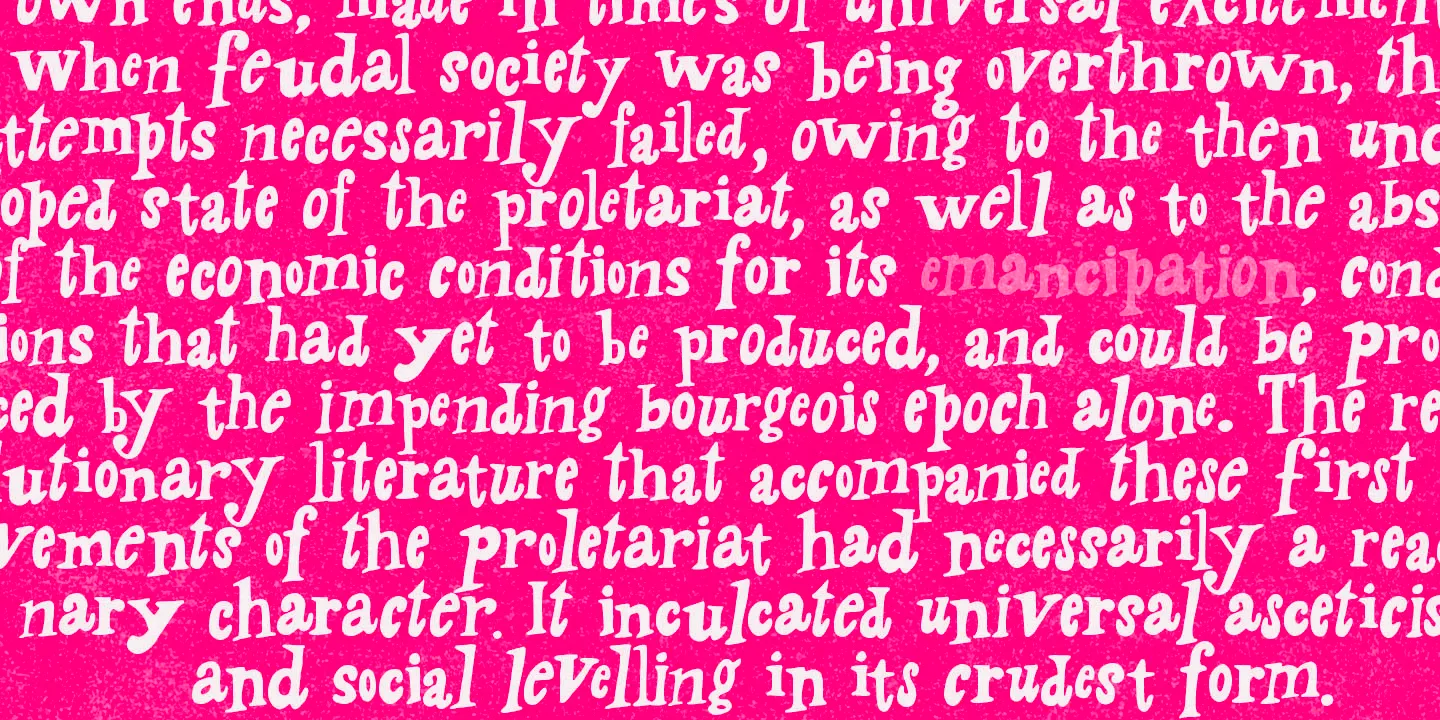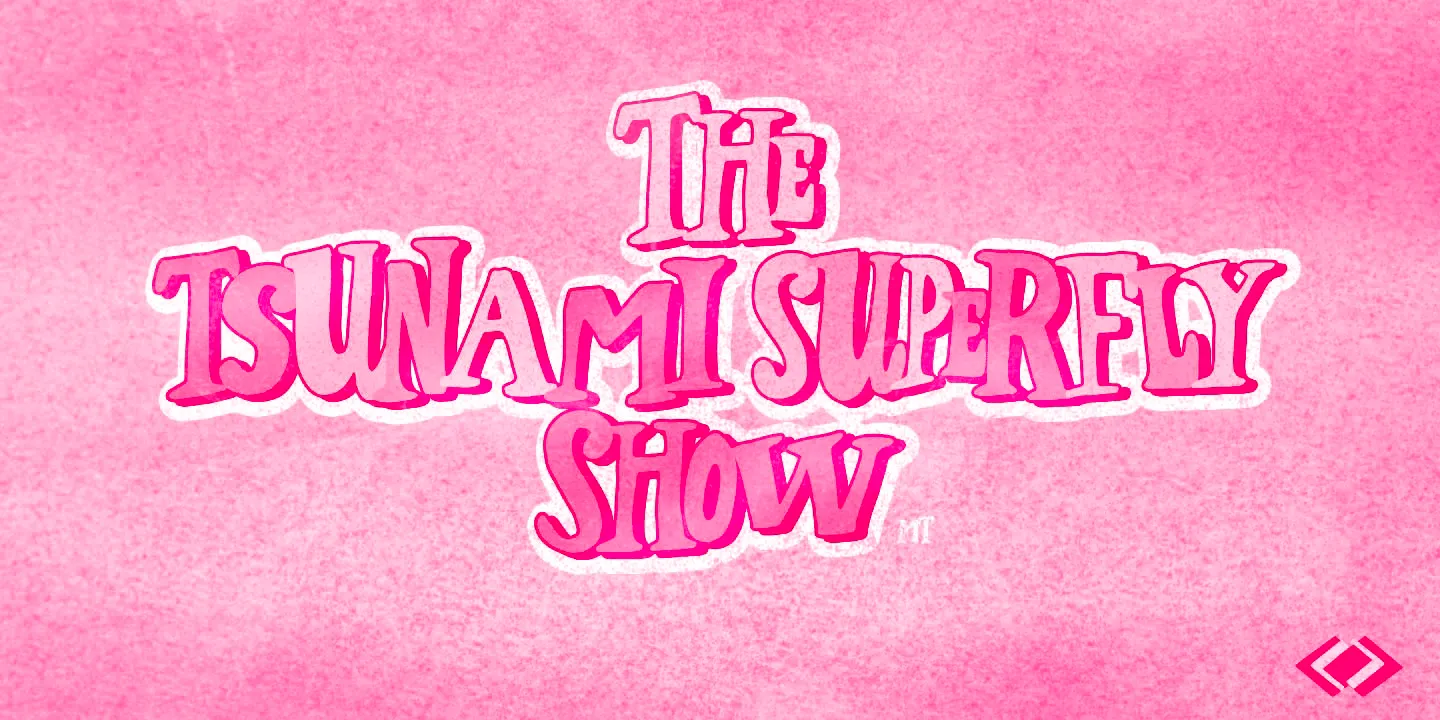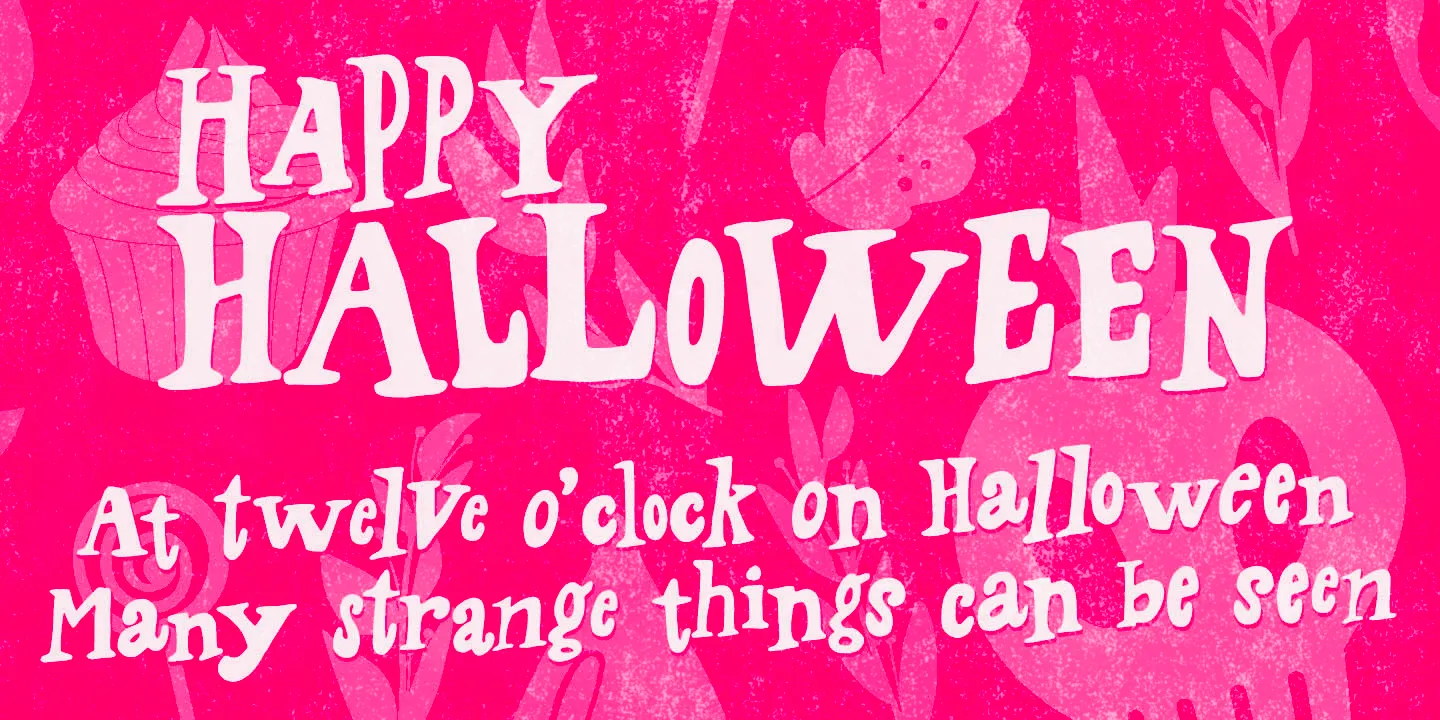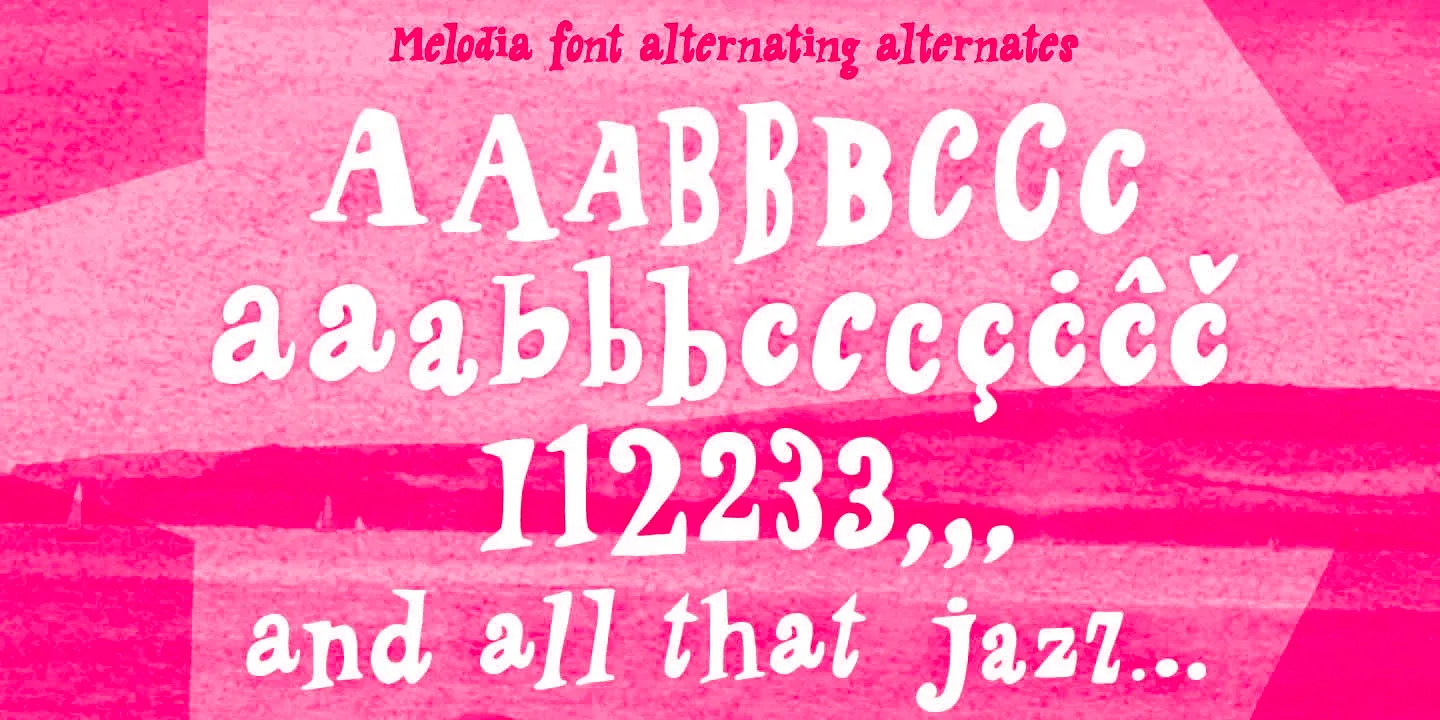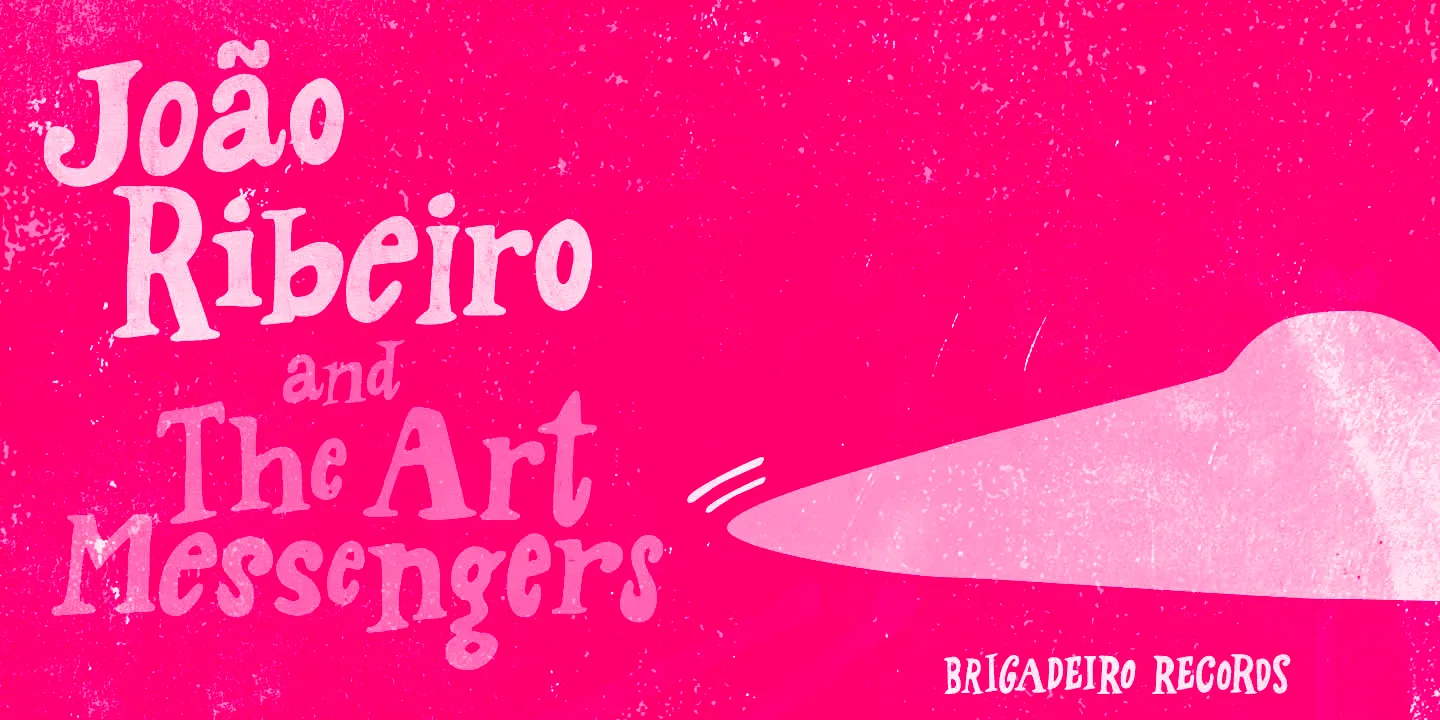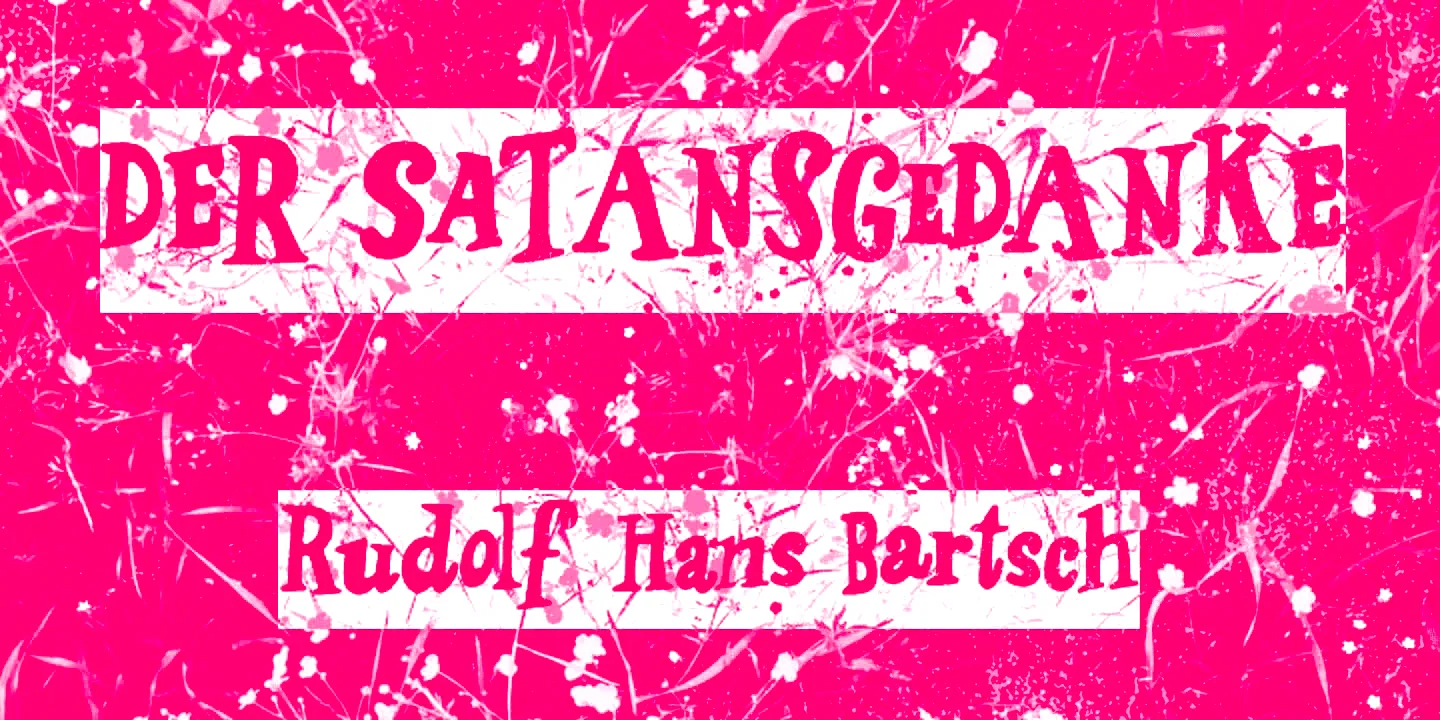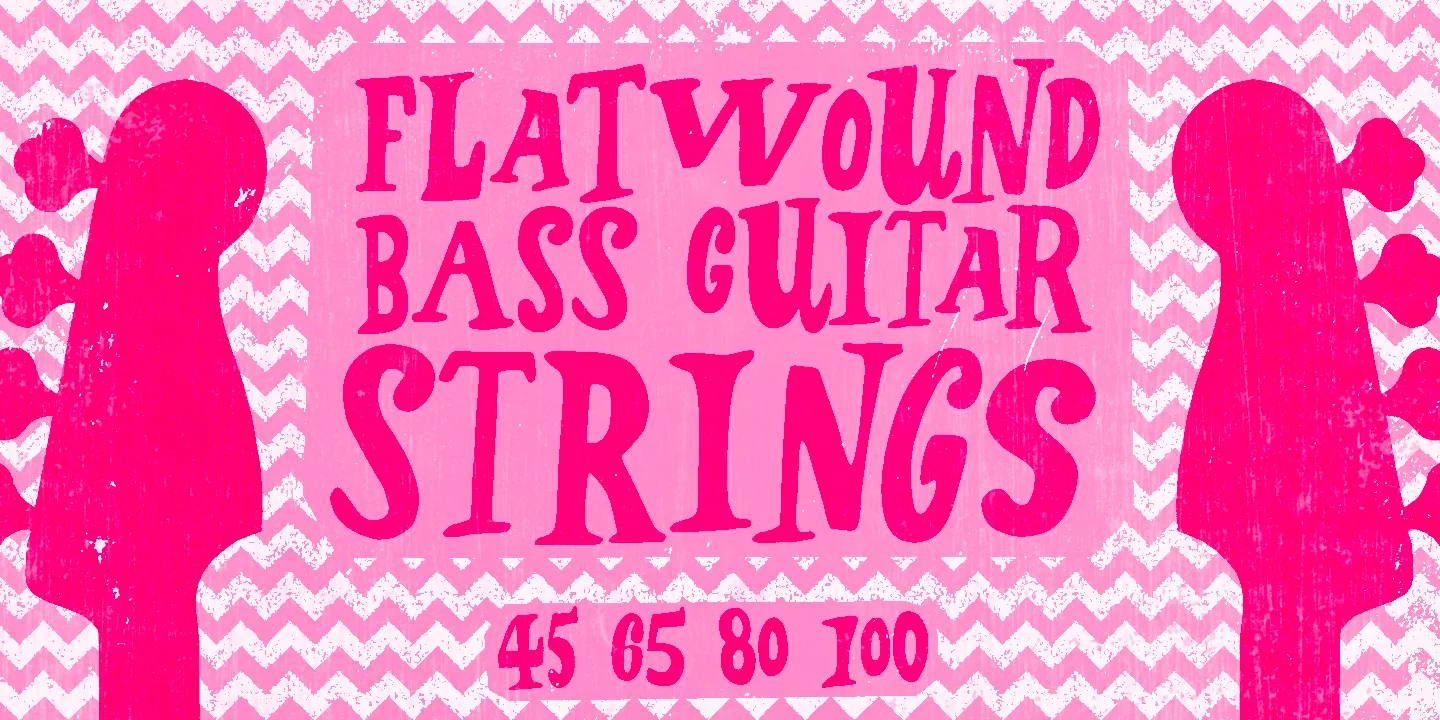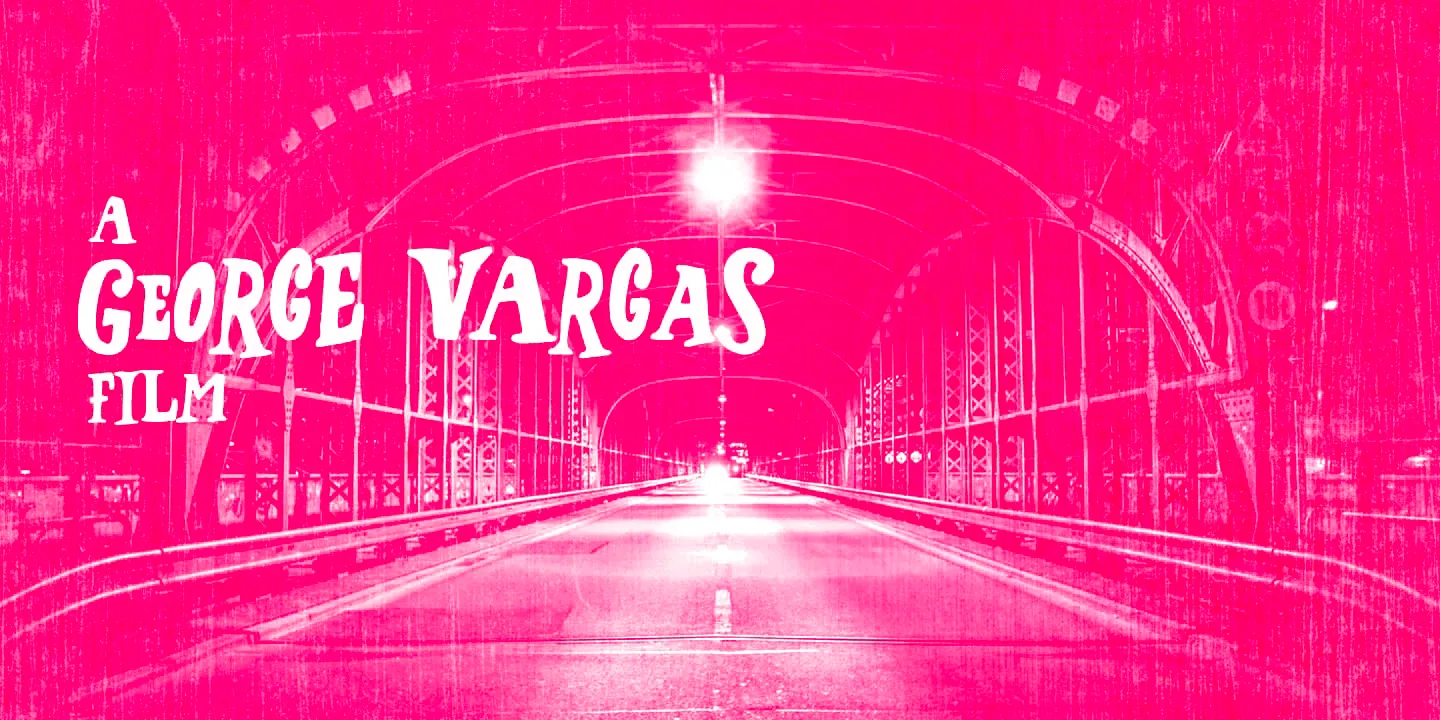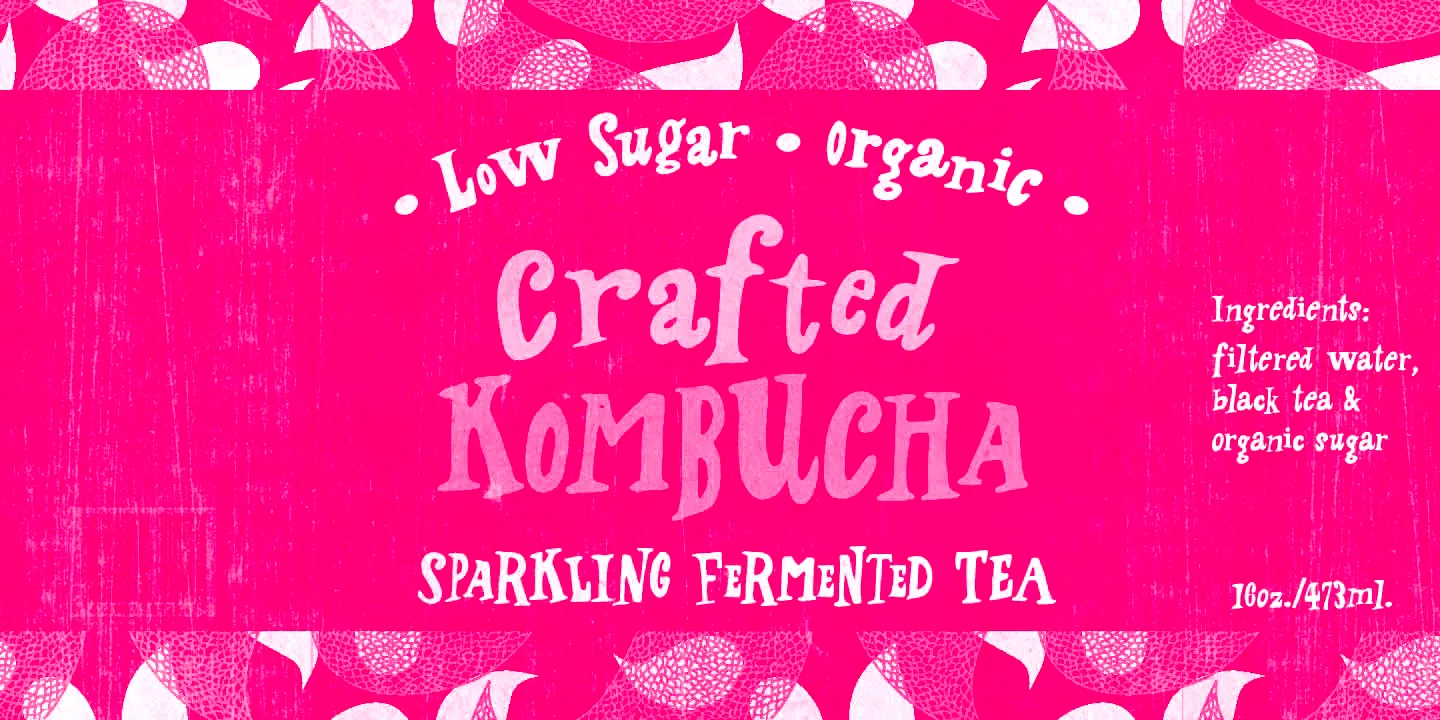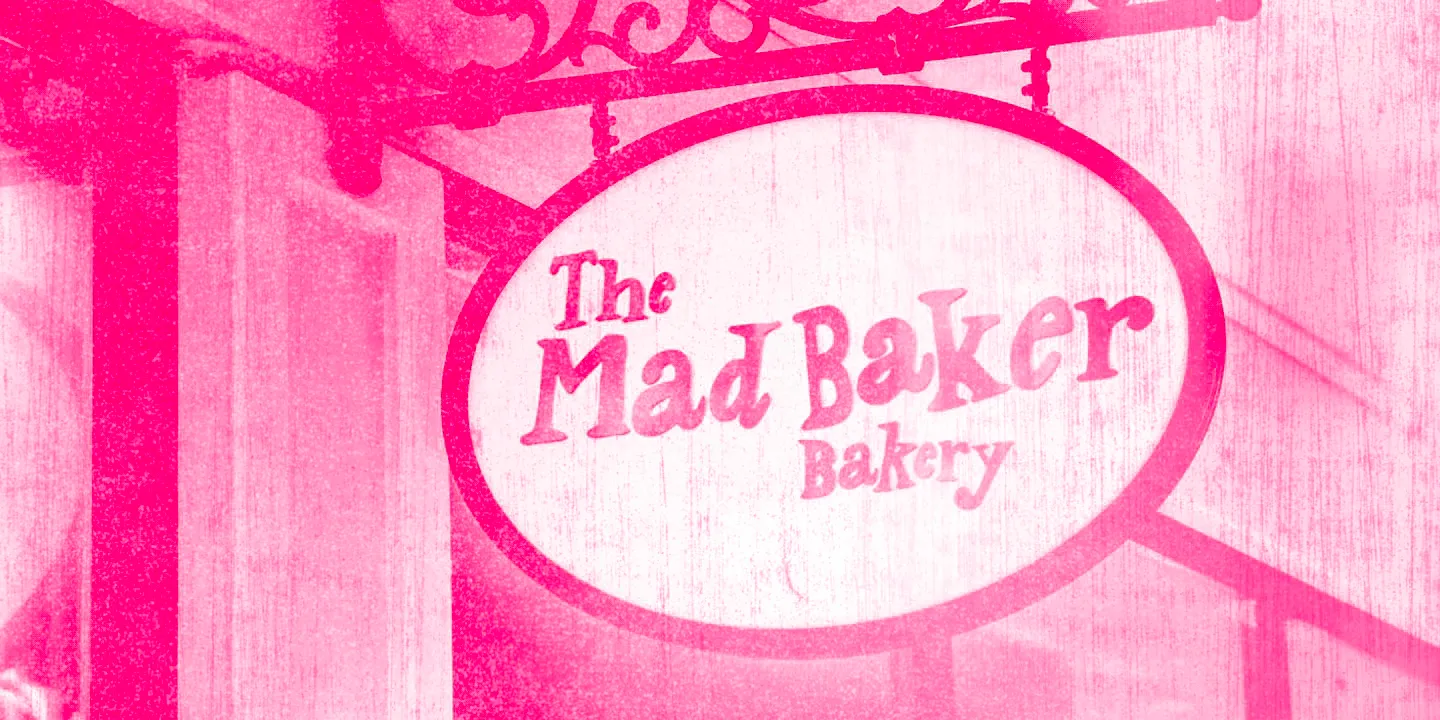
Melodia
Melodia is a highly energetic hand-lettered serif. It’s a whimsical font with a lot of flair and musical rhythm. Quirky curves and a bouncing baseline bring a lively, spontaneous tone, particularly when alternates are used. Ideal for creative projects calling for personality — think children’s books, theater posters, expressive packaging, or spirited editorial design. Melodia strikes a balance between playful elegance and typographic improvisation. Remember! Use it only on cool stuff.
- Stylistic Sets